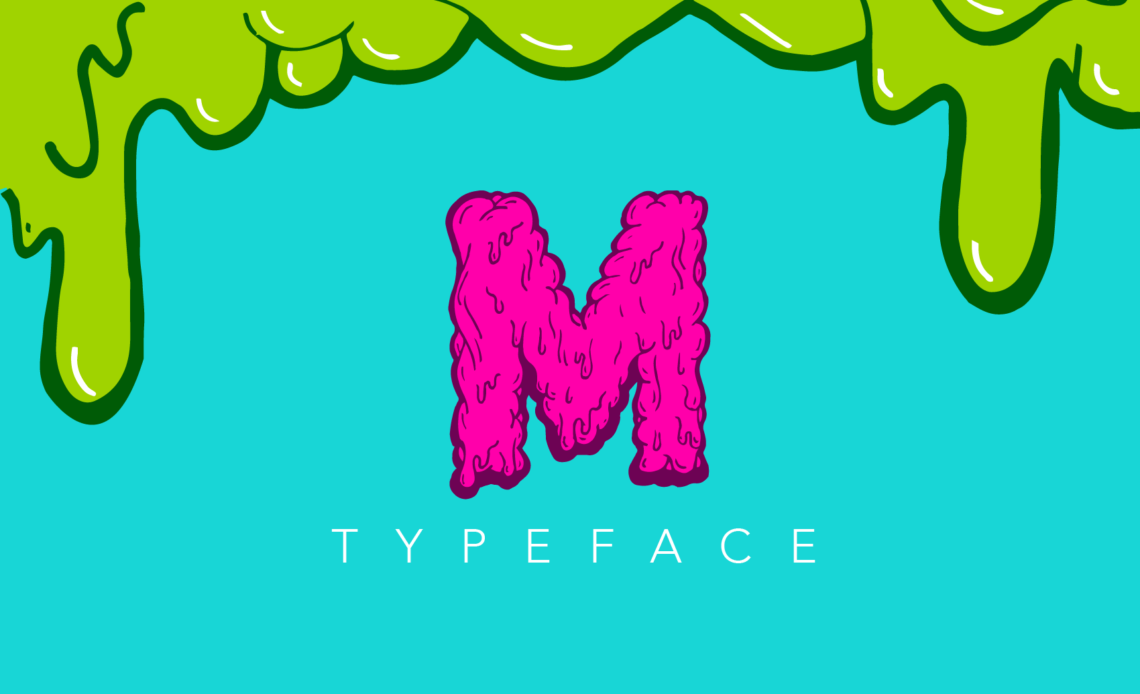
Unleash your creativity with Monstrocity Font, a decorative font that adds a touch of grandeur and eccentricity to your designs. This font family, crafted by Macaroni Mayhem, takes inspiration from the macabre, featuring intricate ornaments and captivating glyphs. It's perfect for making a statement in headlines, logos, posters, or any design element that demands attention.
Embrace the versatility of Monstrocity Font. Its carefully designed characters, complete with punctuation and numbers, make it suitable for various projects. Use it to create designs that exude a fluffy and stylish charm or evoke a grunge and grotesque ambiance. The choice is yours, as this font is limited only by your imagination.